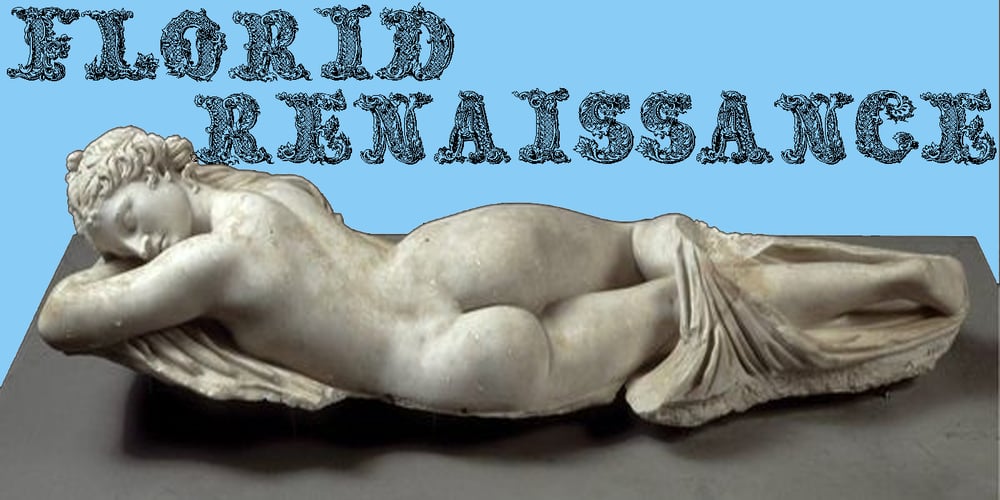
Florid Renaissance Font Family was designed by Jose Jimenez and published by Celebrity Fontz. Florid Renaissance contains 1 styles and family package options. Florid Renaissance is digital revival of a classic and ornate historical alphabet. The font face is dressed in a repeating diamond-pattern faÁade, and the edges are adorned with grape leaves, flowing scrolls, and flourishes, evoking the apex of Italian Renaissance design. The font includes a full set of accented characters.